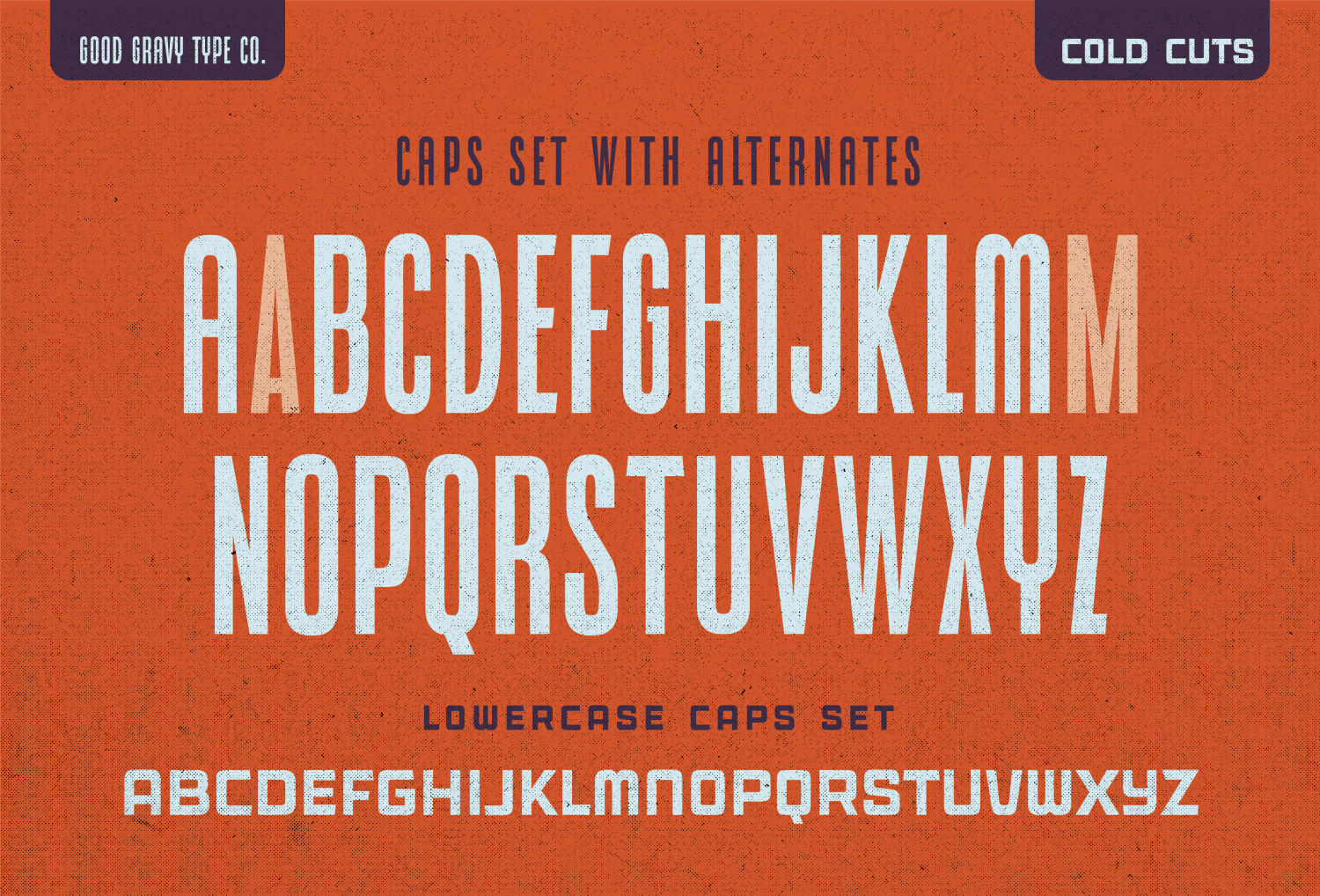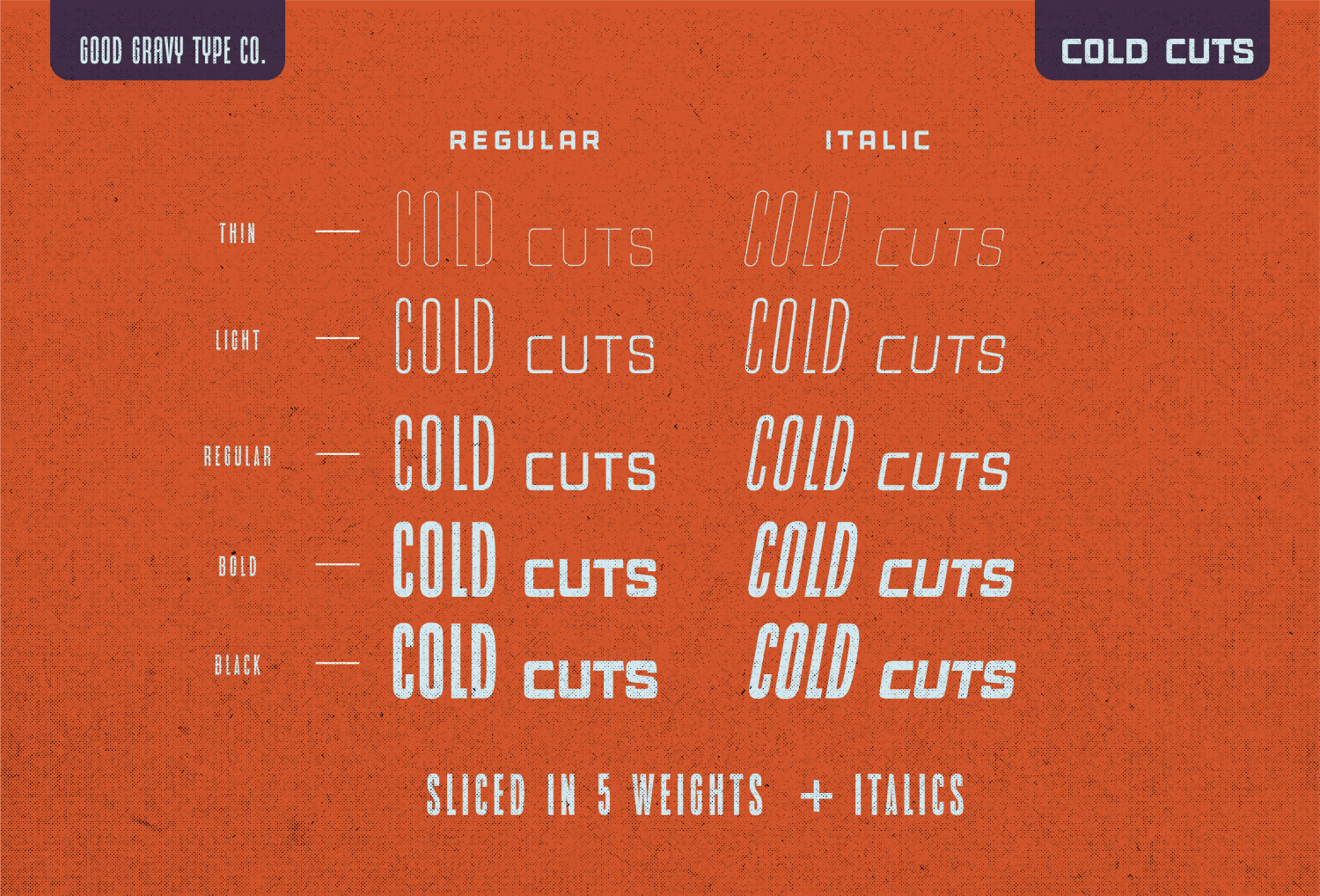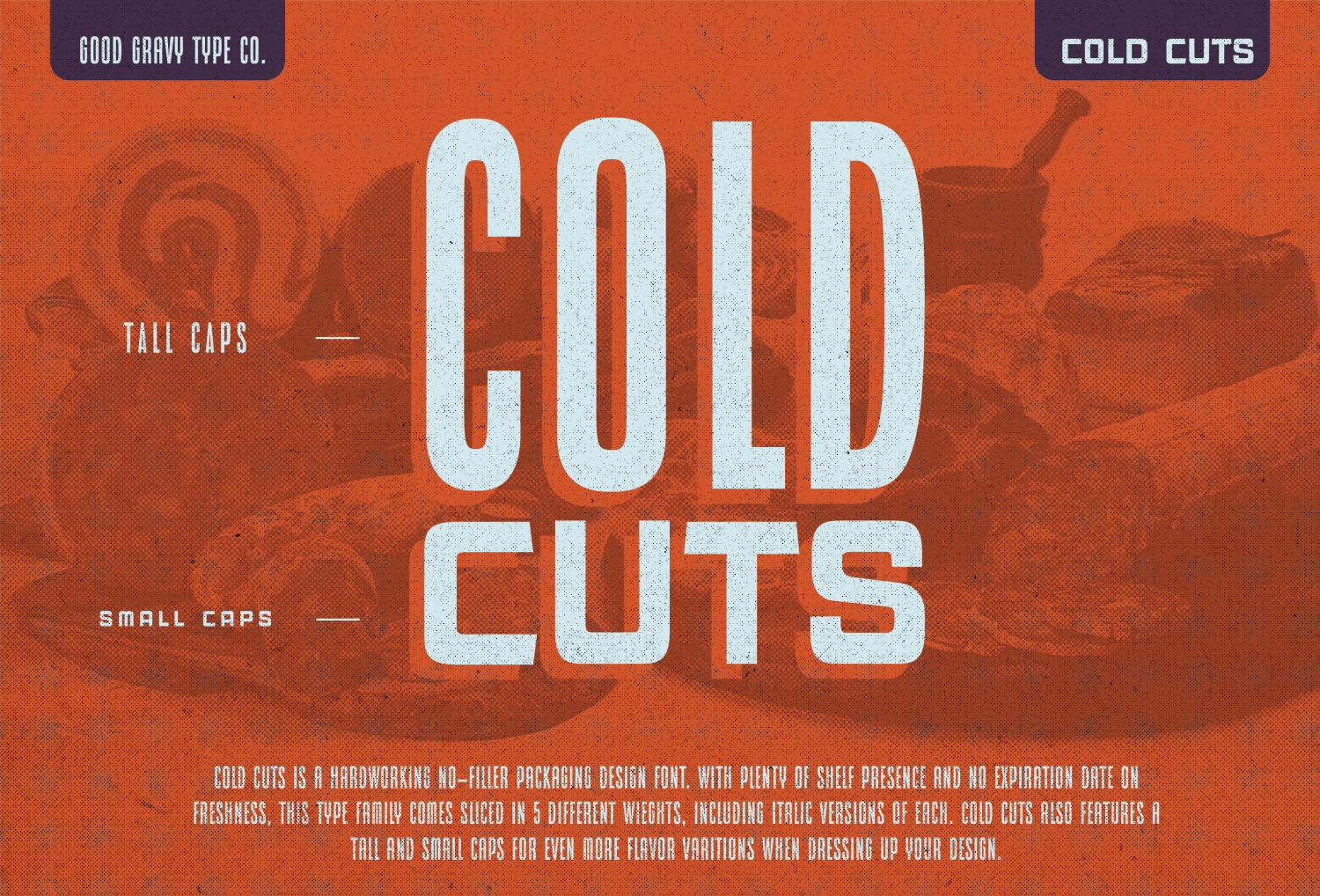
Cold Cuts
About Cold Cuts
Cold Cuts is an assorted spread of delicious fonts pre cooked to perfection. This 10 weight font family is for a limited time it is the perfect way to stock your font fridge. Cold Cuts a lean upright font family with a lowercase caps option to give…